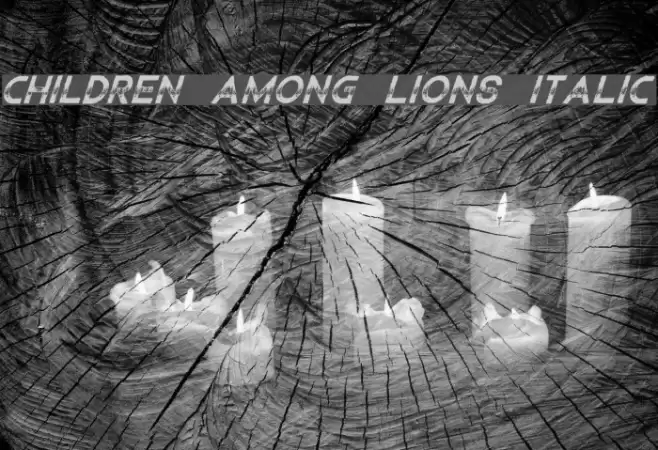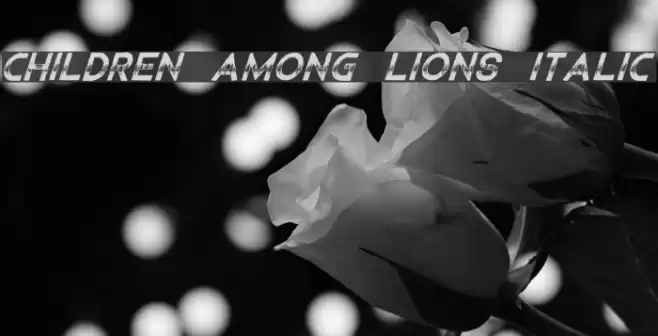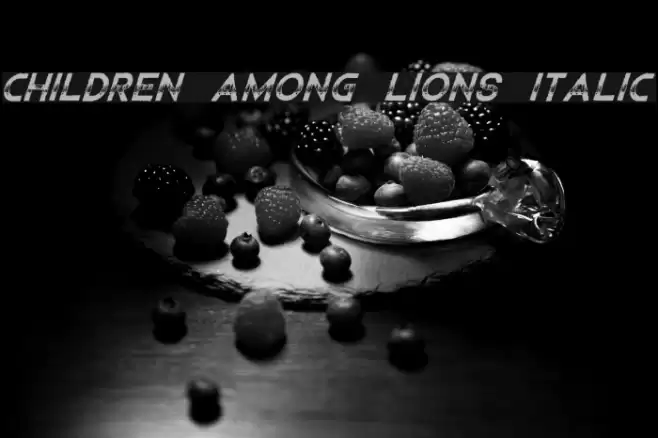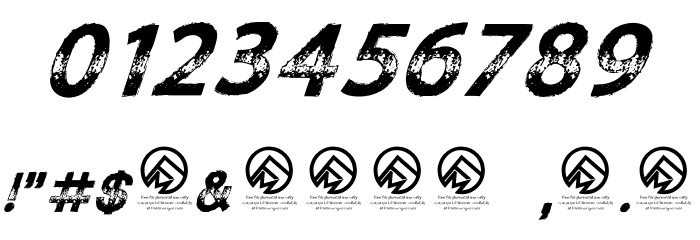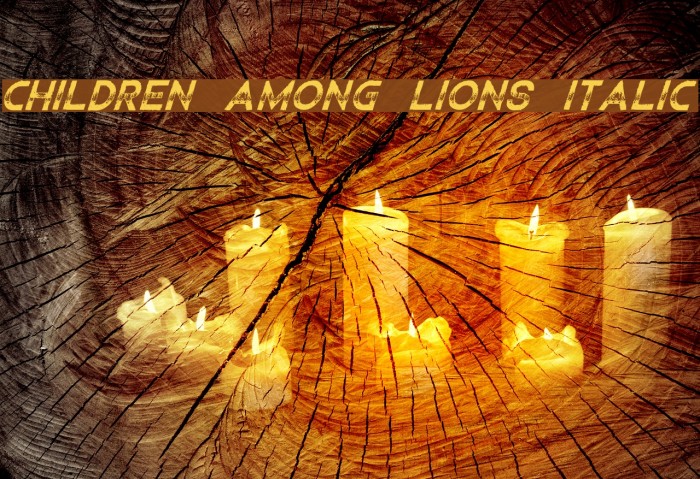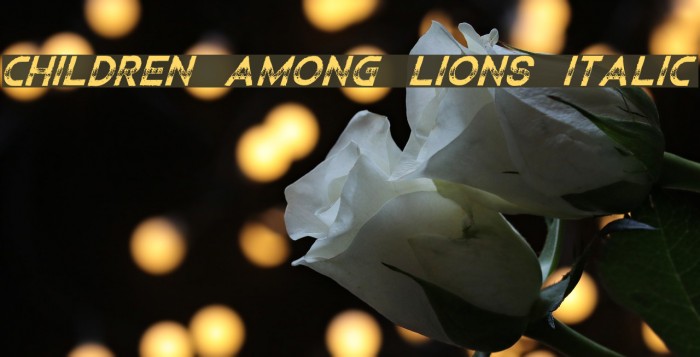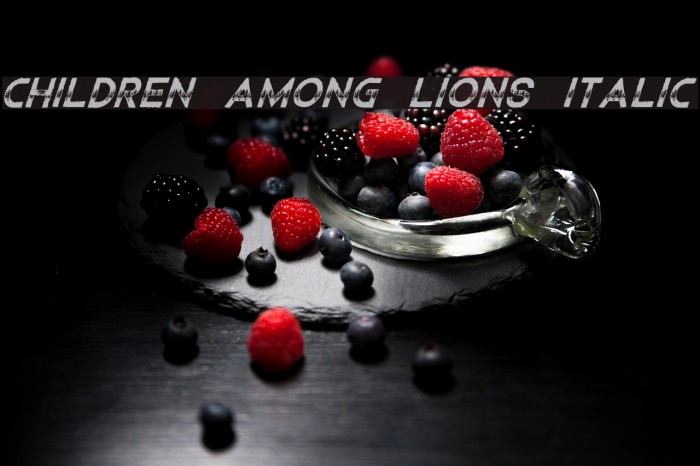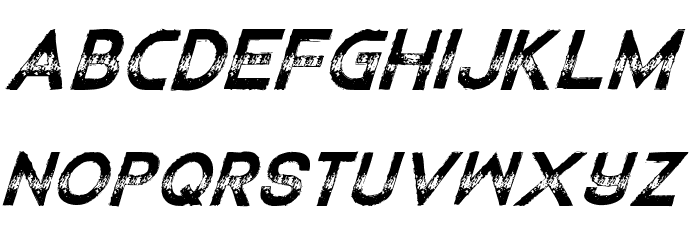
Children Among Lions Italic Font
Children Among Lions Italic Description
This font features a bold, italicized style with a distressed, grunge texture that gives it a rugged and edgy appearance. The uppercase and lowercase letters maintain a consistent slant, enhancing the dynamic and energetic feel. The numbers and special characters follow the same design, ensuring uniformity across all elements. The texture adds a unique character, making it stand out in creative and unconventional projects. Its boldness and texture make it suitable for eye-catching designs that require a strong visual impact.
A bold, italicized font with a distressed, grunge texture for a rugged look from Distorted Eroded fonts.
- Proposed Projects: Ideal for posters, album covers, branding, and any project needing a bold, edgy aesthetic.